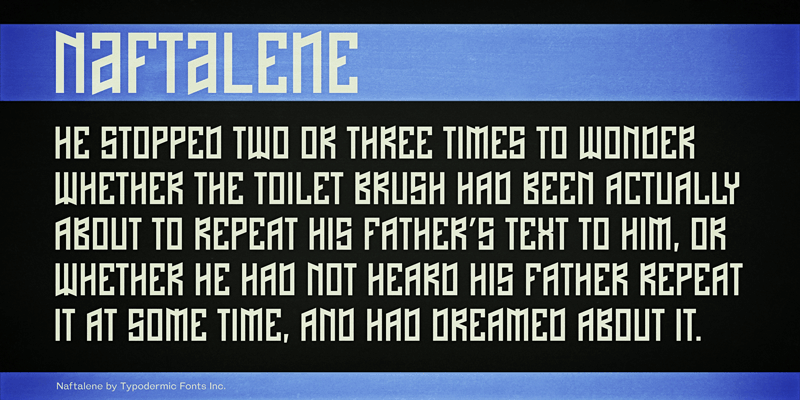
Naftalene is piercing, pragmatic headline blaster. This font includes a license that allows free commercial use: sometimes referred to as a desktop license. This allows you to install the font on a computer and use it to create posters, web graphics, game graphics, t-shirts, videos, signs, logos and more. Read the license agreement for details. If you'd like to embed this font in an app, ebook, on the web or anything that's not covered by the desktop license agreement, visit the link below. You'll find distributors who offer different types of licenses or you can contact me for help. http://typodermicfonts.com/naftalene/ |